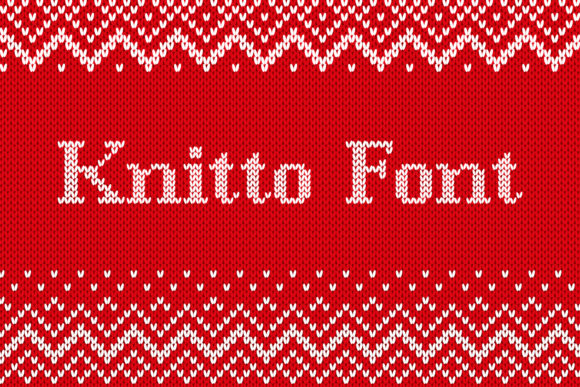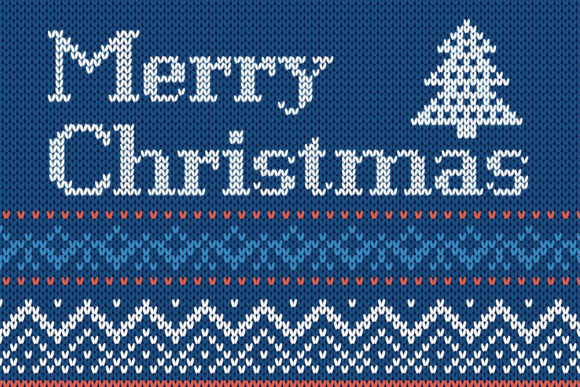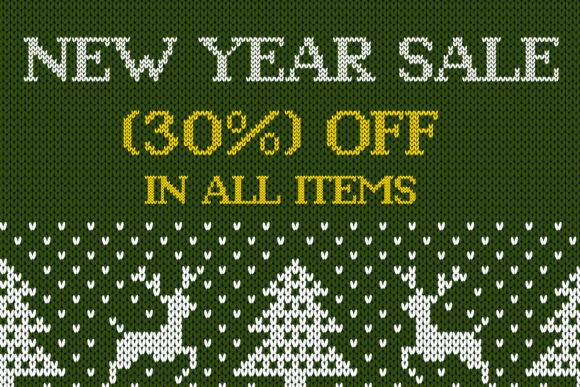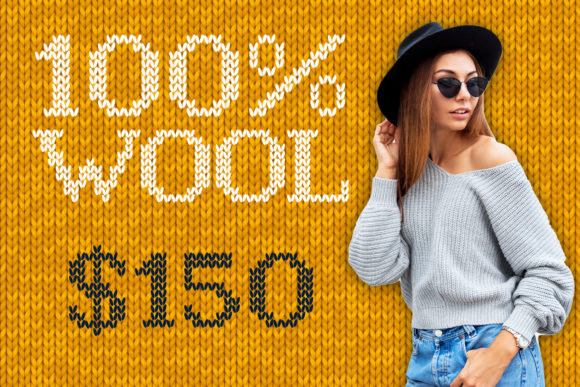
Knitto Font: A Festive Decorative Font for Holiday Crafts & DIY Projects
About the Knitto Font
Introducing the Knitto Font, a beautifully crafted typeface designed to elevate your creative projects. Knitto is a friendly decorative font which embodies fun, quirkiness and authenticity. This enchanting font will turn any creative idea into a true standout.
Knitto’s playful, hand-crafted feel makes it ideal for headlines, short text blocks in branding materials, or eye-catching packaging designs. It would also work well for posters and social media graphics where a quirky, friendly tone is desired. However, its decorative nature makes it unsuitable for body text or UI elements requiring high readability. Extended use could quickly become visually overwhelming.
For optimal impact, pair Knitto with a clean sans-serif like Open Sans for body copy, balancing its whimsical energy with a straightforward, legible counterpart. Alternatively, a classic serif font such as Garamond could add a touch of sophistication and contrast its informal style. Avoid pairing it with other highly decorative fonts to prevent visual clutter.
Knitto’s core personality is undeniably friendly and quirky, conveying a sense of handmade charm and authenticity. It’s best suited to brands or projects that emphasize approachability, creativity, and a youthful, energetic spirit.